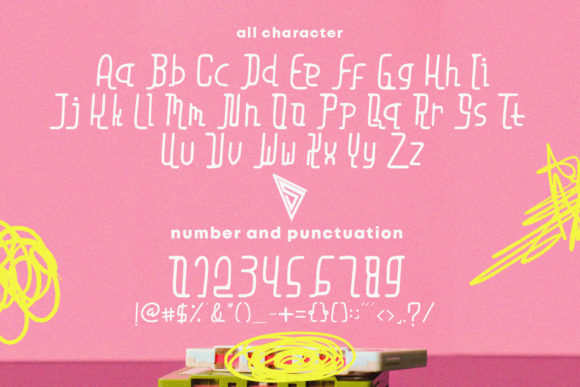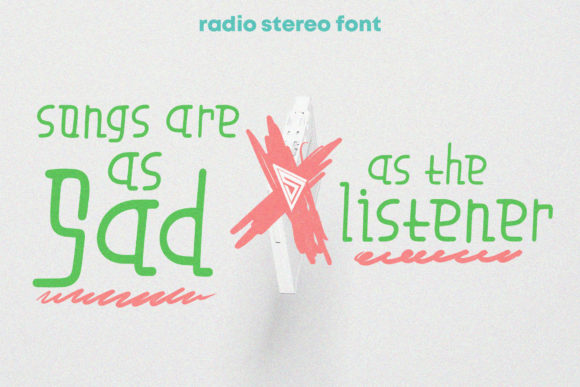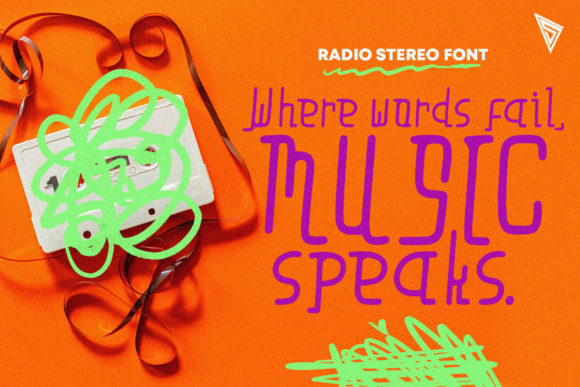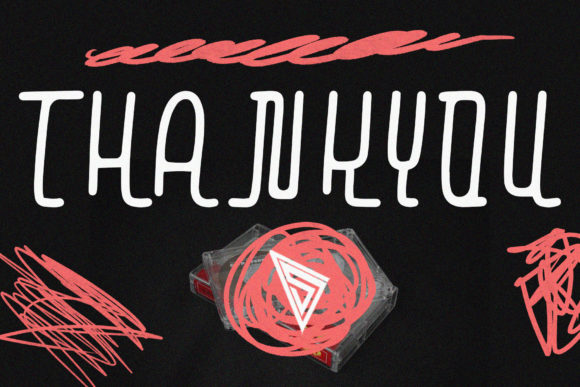
Introduction to Radio Stereo Font
Radio Stereo is a unique and simple display font inspired by the transmission and reception of electromagnetic waves of radiofrequency.
This font is suitable for posters, posts, cards, and many more Add it to any of your creative projects and notice how it makes them outstanding.